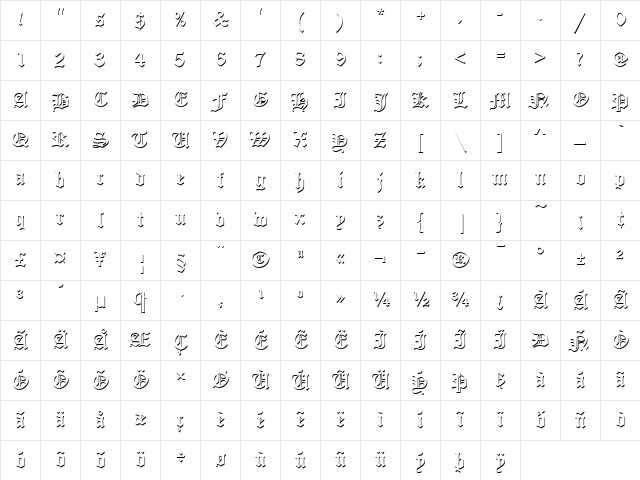
Old English Only Shadow D Regular
Design Context for Old English Only Shadow D
Old English Only Shadow D is built around its visual character rather than neutral utility - its distinctive forms are designed to make an impression at display sizes.
Font Pairing: Pair with a clean neutral sans-serif for body copy to let Old English Only Shadow D's character lead without overwhelming the composition.
Pro Tip: Use Old English Only Shadow D exclusively at display sizes - it was designed to be seen, not read at length. Let a neutral companion handle body copy.